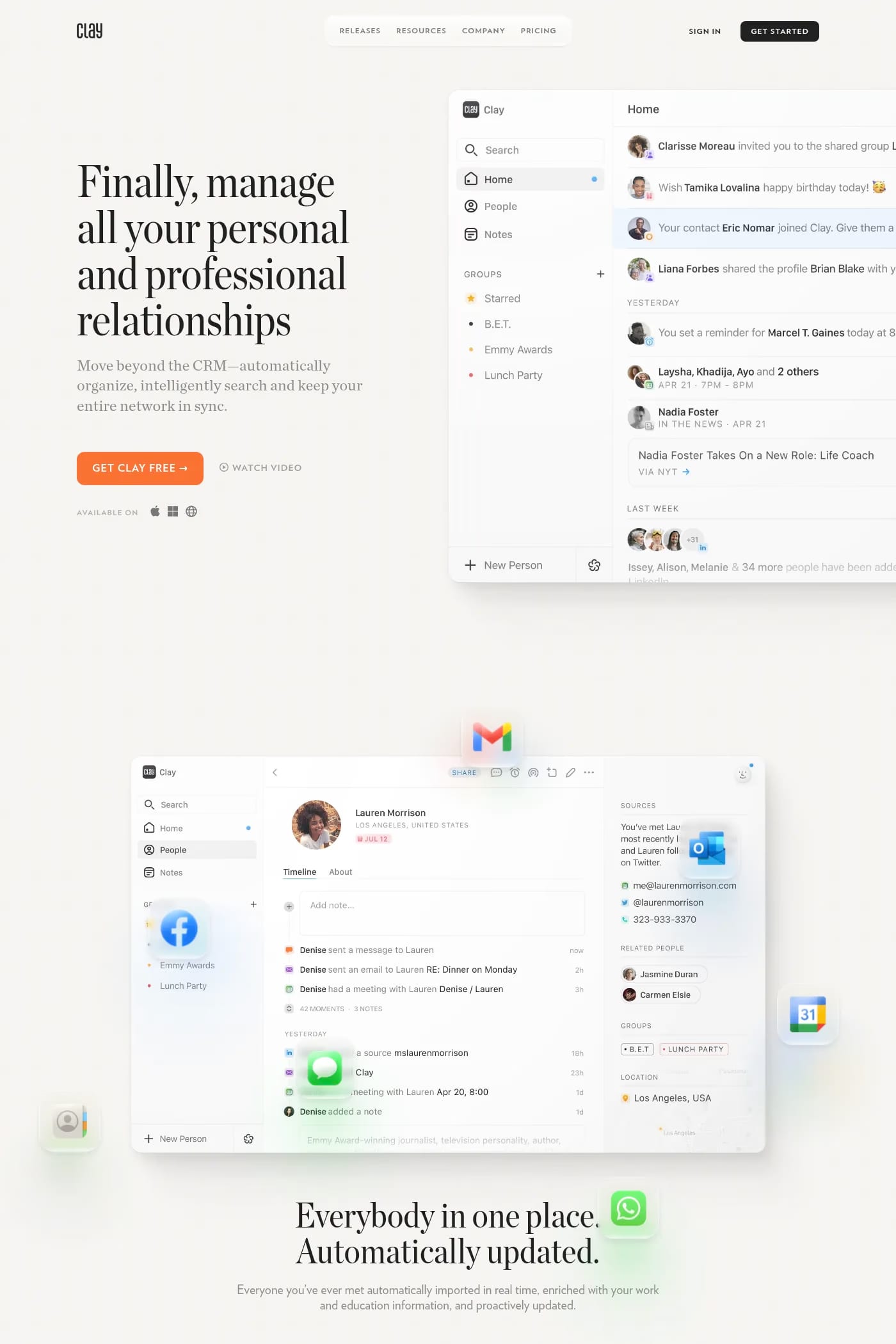
Chronicle is a serif typeface from Hoefler & Co..
Chronicle Display — A vigorous hybrid of time-honored forms and contemporary design strategies, Chronicle Display is a suite of headline faces that brings strength and utility to the classic serif.